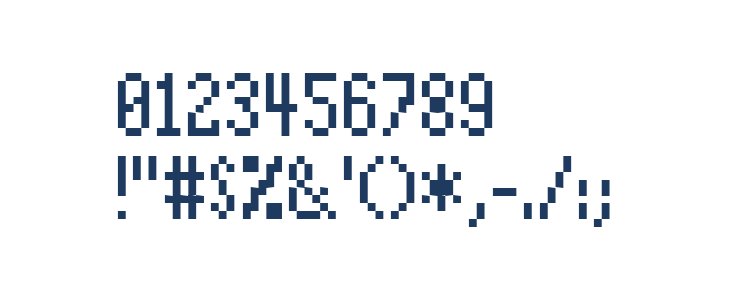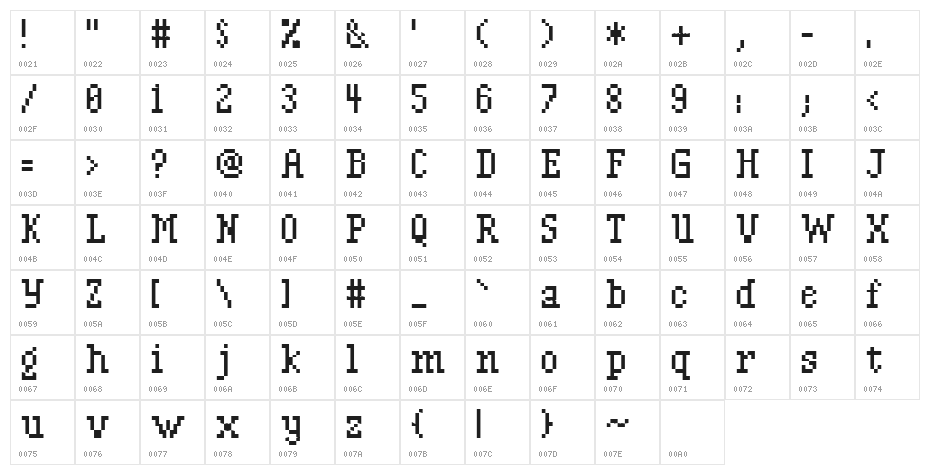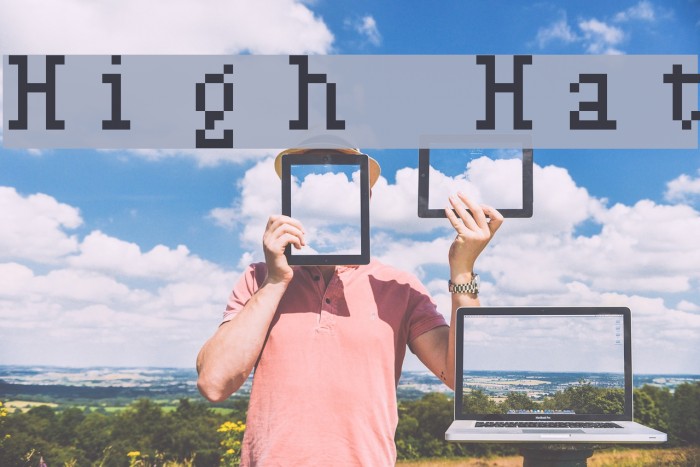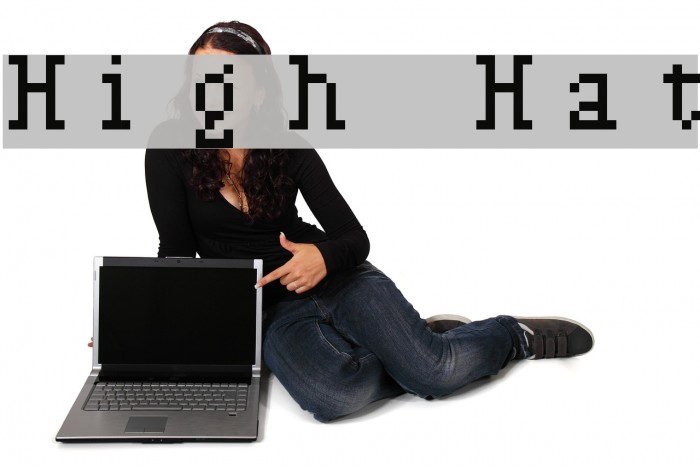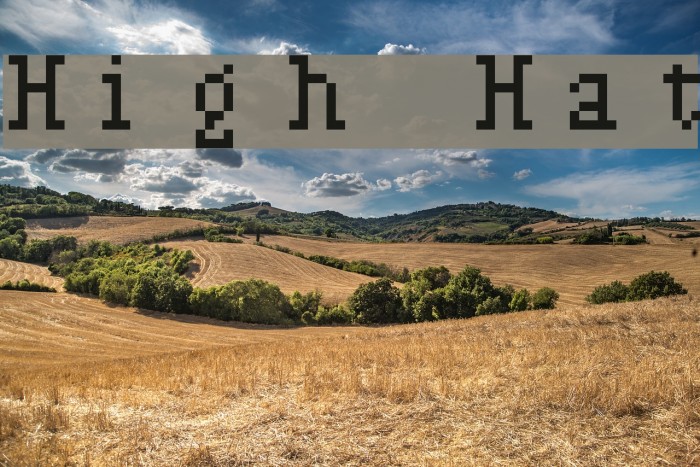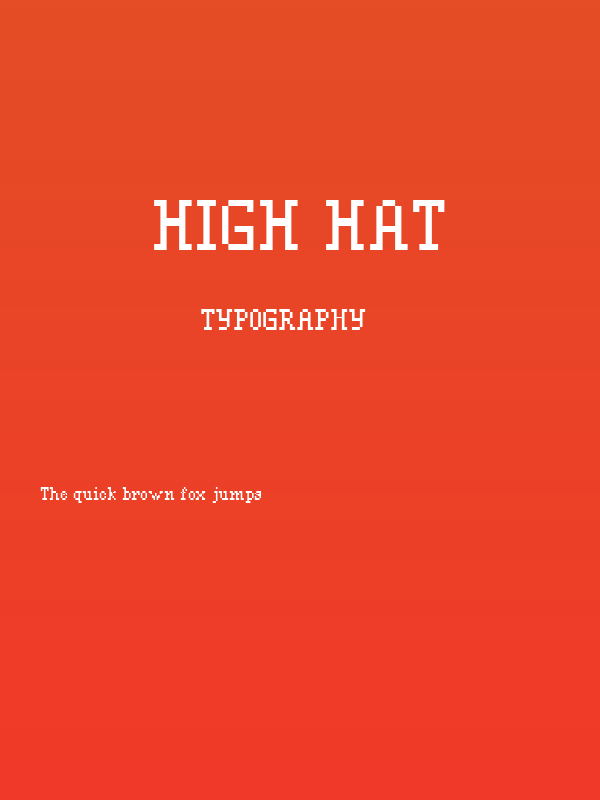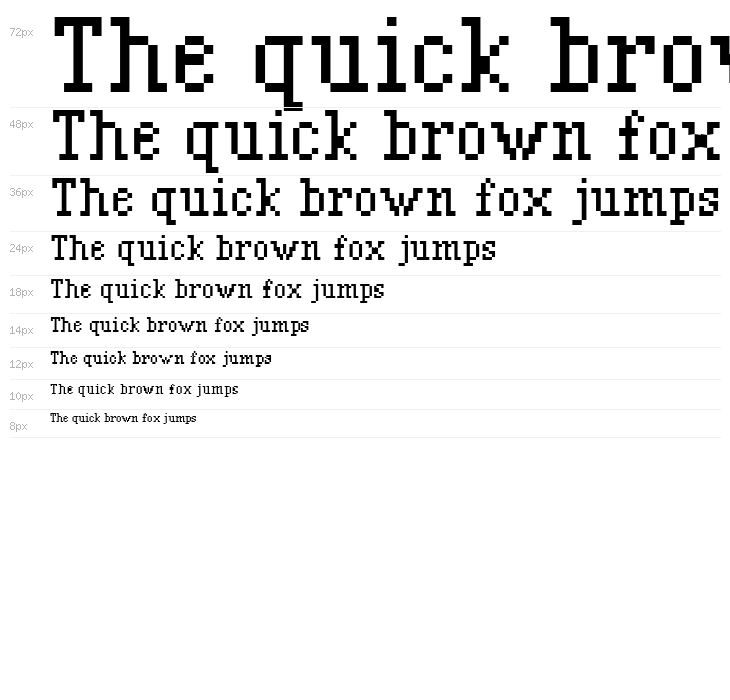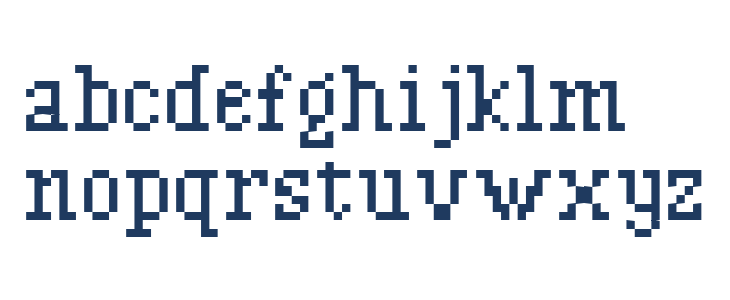
High Hat Font
High Hat Description
This font features a pixelated, monospaced design reminiscent of early digital typefaces. Each character is composed of a grid-like structure, giving it a retro, computer-generated appearance. The uniformity in character width and height contributes to a consistent and orderly look. The uppercase and lowercase letters maintain a similar style, with slight variations in size and shape. Numerals and special characters are crafted with the same pixelated precision, ensuring readability and a cohesive aesthetic. The font's simplicity and geometric form make it ideal for projects that aim to evoke nostalgia or a vintage digital feel.
| Use Case | Logos, Headlines, Digital displays |
| Proposed Projects | Ideal for retro video games, digital art projects, tech-themed designs, and nostalgic branding. |